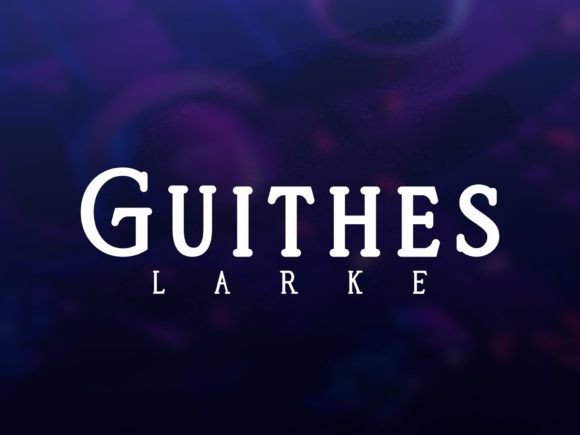
Introducing Guithes Larke Font - The Epitome of Professionalism and Elegance
In the realm of typography, where letters dance and words come alive, there exists a font that stands tall - Guithes Larke. A masterpiece crafted by the visionary minds at artnivora.std, this slab serif font exudes simplicity, sophistication, and an aura of timeless allure.
Guithes Larke is more than just a collection of glyphs; it is an artistic expression, a tool that empowers you to communicate with clarity and impact. Whether you're a seasoned designer or just starting your creative journey, this font is your perfect companion, ready to elevate your projects to new heights.
With its bold serifs and generous proportions, Guithes Larke commands attention without overpowering. It's a font that speaks of authority, reliability, and a touch of understated elegance. Its sturdy letterforms convey a sense of stability and trust, making it the ideal choice for official documents, presentations, and any project where professionalism is paramount.
Immerse yourself in the world of Guithes Larke and discover a font that:
* Embodies Simplicity and Elegance: Guithes Larke's clean lines and refined curves create a visual harmony that complements any design. Its unassuming presence allows your content to shine, making it the perfect choice for minimalist and modern aesthetics.
* Commands Authority and Trust: The bold serifs and sturdy letterforms of Guithes Larke exude an aura of authority and reliability. It's a font that instantly commands attention and instills confidence in your audience.
* Transcends Time and Trends: Guithes Larke is a timeless font that transcends fleeting trends. Its classic design ensures that your projects will retain their relevance and sophistication for years to come.
* Enhances Readability and Clarity: With its generous proportions and carefully crafted letter spacing, Guithes Larke ensures optimal readability, even in small sizes. Your audience will appreciate the effortless flow of words, making it an excellent choice for lengthy documents and presentations.
* Versatile Across Diverse Projects: Guithes Larke is a versatile font that seamlessly adapts to a wide range of creative endeavors. From logos and branding to brochures and magazines, from social media graphics to website designs, this font adds a touch of sophistication and professionalism to every project you undertake.